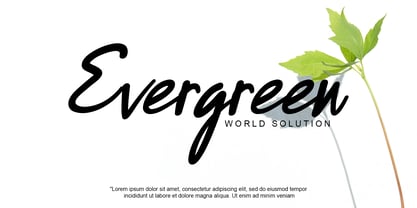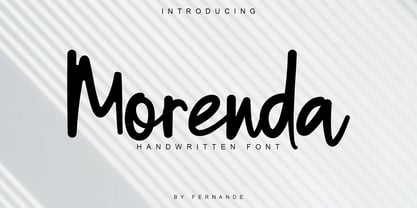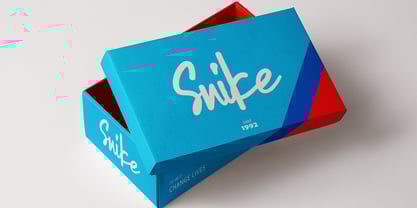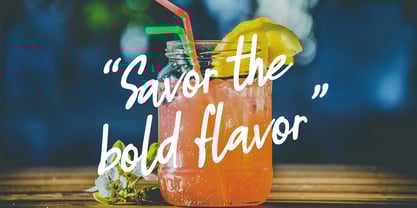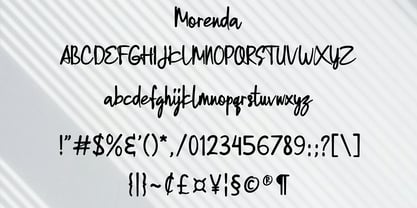
Morenda
by Fernande
The Morenda Font Family was designed by Angga Fernandi and published by Fernande. Morenda contains 2 styles. More about this family
Unveiling Morenda, an elegant hand-scripted font blending casual appeal with graceful allure. Crafted with fluid hand strokes and natural letter shapes, Morenda exudes a welcoming appeal in all design endeavors. Amply suited for brand building, bespoke wedding invites, memorable quotes, eye-catching posters, and diverse creative explorations, Morenda delivers flexibility enveloped in style. Its distinctive character and high readability make it an ideal pick for infusing a handcrafted touch to every prose. This unique style element stands as a testament to individuality and expressiveness, making every word speak volumes with Morenda.
Designers: Angga Fernandi
Foundry: Fernande